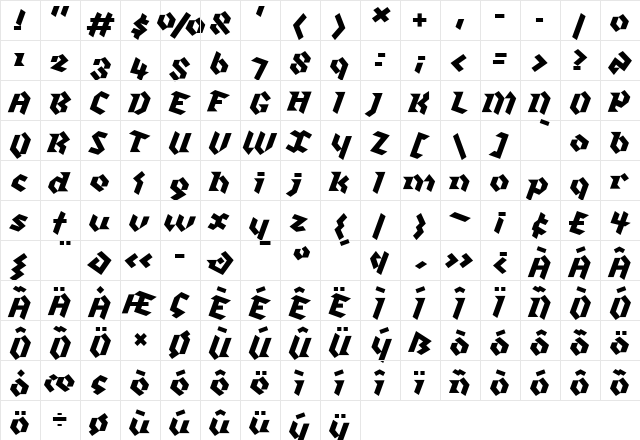
Klute Regular Font Preview
Klute Regular
Klute Regular Font Details
| Foundry | Gareth Hague |
Design Context for Klute Typeface
Klute is a composed and adaptable typeface that performs quietly and consistently across a wide range of design contexts.